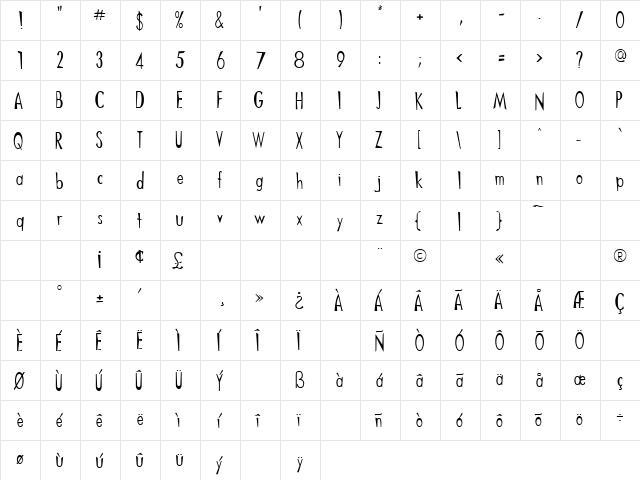
Lattice Normal
Design Context for Lattice Typeface
Lattice takes a measured approach to typography — its balanced proportions and neutral character make it a reliable workhorse for both digital and print work.